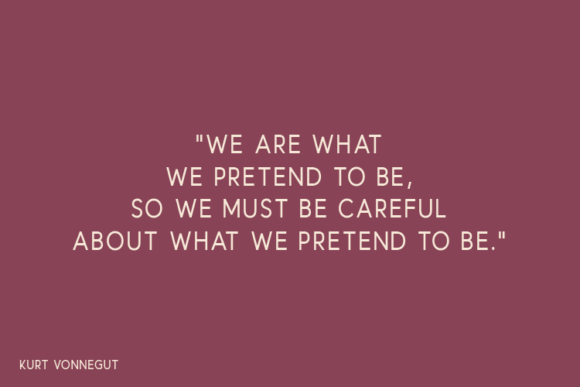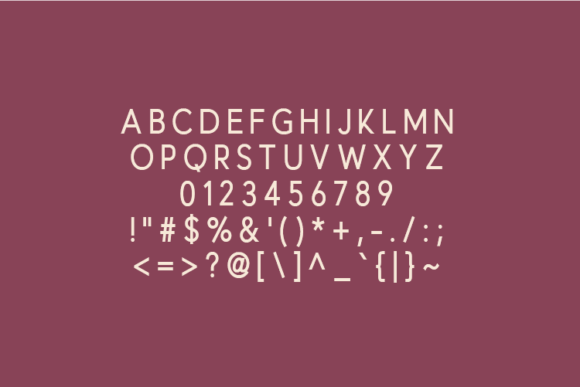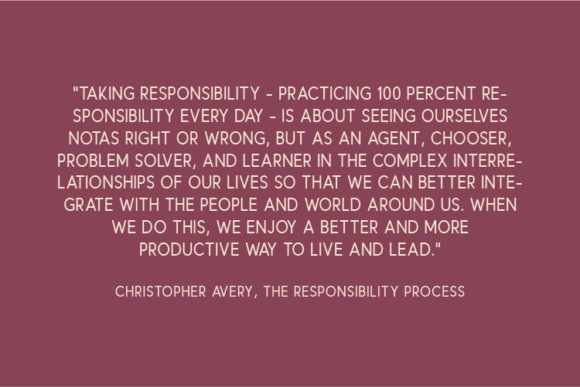
Refreshing Font
About the Refreshing Font
The Refreshing Font is here to transform your projects with its distinctive character and style. Introducing Refreshing, a modern, classy sans serif typeface.
An extremely versatile font, perfect for logos, weddings, invitations, quotes, advertisements, print, magazines, and more!
Refreshing’s clean lines and contemporary feel make it ideal for headlines, short-form text in branding materials, and impactful quotes. It works exceptionally well in packaging design and advertisement layouts where visual impact is key. However, its slightly condensed nature makes it less suitable for body copy or long paragraphs; readability suffers at smaller sizes.
Its modern, yet classy personality lends itself to brands seeking a sophisticated and approachable aesthetic. Consider pairing Refreshing with a warm serif like Playfair Display for a touch of elegance or a geometric sans-serif like Montserrat for a contemporary, balanced look. A script font like Great Vibes could add a handwritten touch for invitations or branding needing a personal feel.
Refreshing exudes a friendly and modern boldness. Avoid using it for projects requiring a serious or highly formal tone.
Refreshing Font Usage Examples
Refreshing Font Example